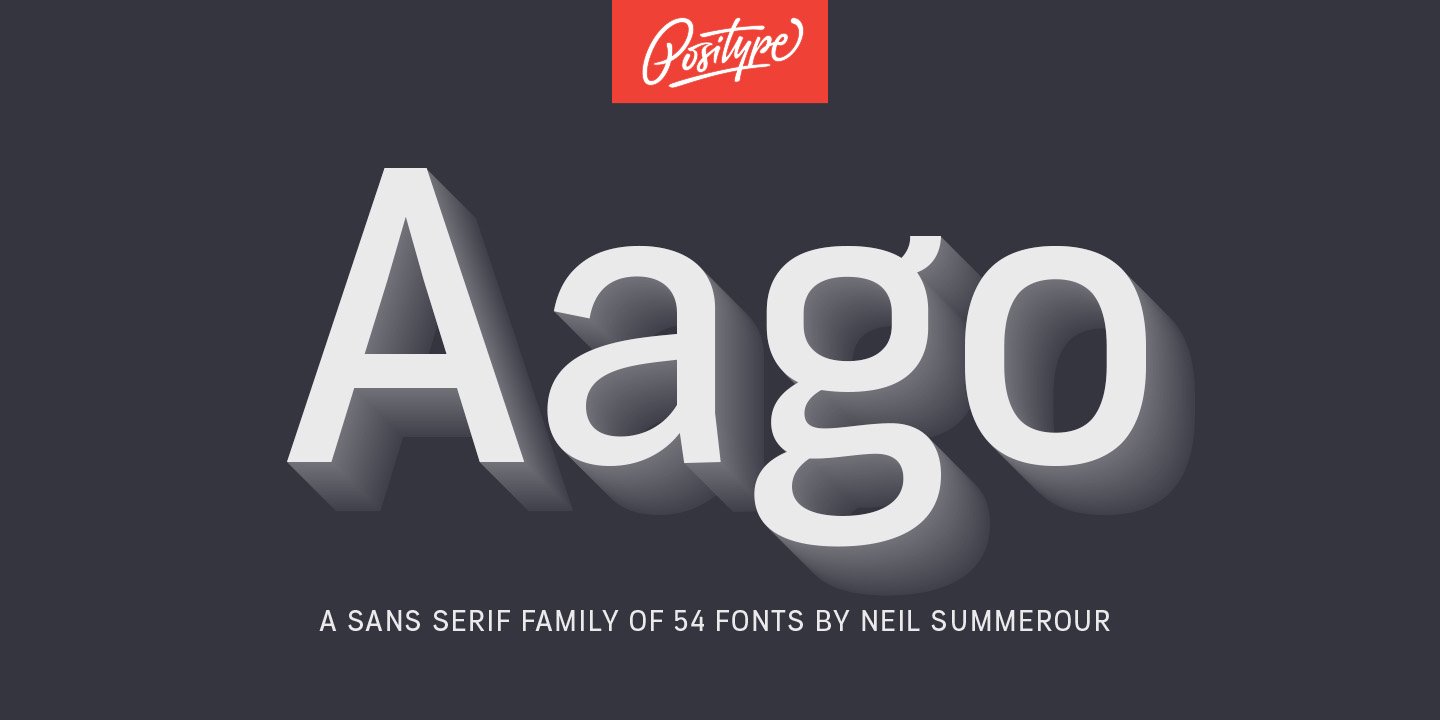
Aago Font Free Download presents designers with a contemporary typeface that embodies modern simplicity and functional elegance with understated sophistication. However, for commercial use, you must purchase this font. You can download it for free for testing purposes only.
Aago Font excels in clean design applications including tech startup branding, minimalist web interfaces, contemporary corporate identities, modern app typography, sleek product packaging, progressive marketing materials, architectural presentations, digital platform design, innovative service branding, and streamlined communication systems. This refined typeface brings clarity and modernity to forward-thinking design projects.
What makes Aago Font truly exciting is its perfect balance of geometric precision with subtle humanist warmth that creates approachable professionalism for contemporary audiences. The font features clean, well-proportioned letterforms with optimized spacing and excellent legibility that ensure superior performance across digital and print environments. Its modern character and versatile functionality make it ideal for brands embracing minimalist design principles, technological innovation, and audiences who appreciate clean aesthetics, efficient communication, and the sophisticated simplicity of contemporary design thinking.
The Aago Font family typically includes multiple weights such as Light, Regular, Medium, Bold, and potentially Black with corresponding Italic variations. These comprehensive options provide designers with complete typographic flexibility while maintaining the font's distinctive clean character and modern presentation across various contemporary applications and digital contexts.
Whether you're developing modern branding, creating digital interfaces, or designing contemporary campaigns, Aago Font Free Download delivers the clean authority and functional sophistication that modern projects require. Its exceptional clarity and contemporary appeal make it invaluable for designers working with technology companies, modern brands, and progressive organizations requiring typography that reflects current design trends, functional beauty, and the efficient communication standards that define successful contemporary visual identity and user experience design.